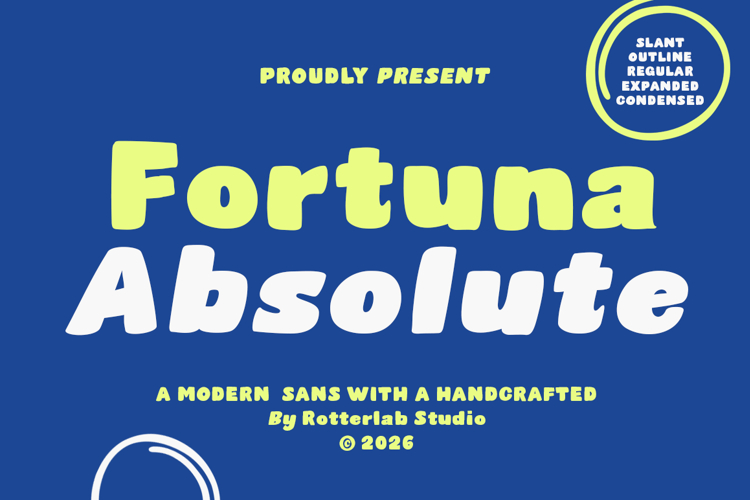
Fortuna Absolute In 5 Style
Fortuna Absolute is a modern sans-serif display typeface with a bold, handcrafted character. Featuring rounded shapes and strong letterforms, it delivers a playful yet clean look that stands out across creative projects.
The family includes 5 styles: Regular, Slant, Outline, Expanded, and Condensed, offering flexibility for branding, logos, posters, packaging, social media graphics, and editorial headlines.
Designed for both print and digital use, Fortuna Absolute combines visual impact with reliable readability.
- Uppercase & lowercase letters
- Numerals & punctuation
- Display-focused sans-serif